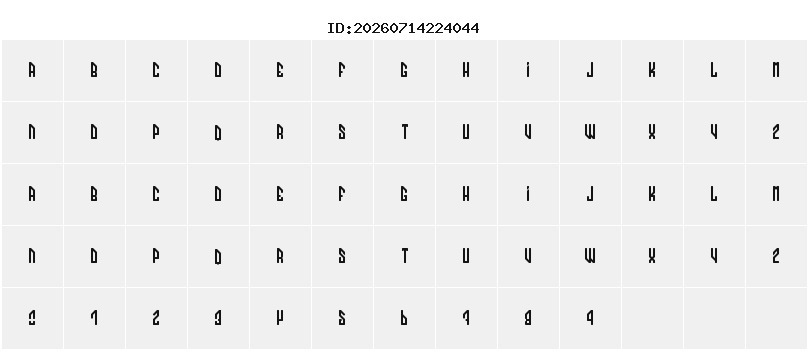
JACKIE TALKS TO YOU ! Preview
• Font Name: JACKIE TALKS TO YOU !
• Full Font Name: JACKIE TALKS TO YOU !
About JACKIE TALKS TO YOU !.ttf
JACKIE TALKS TO YOU !.ttf is a modern, elegant sans-serif font designed for ultimate readability and visual harmony. Perfect for branding, headlines, web design, and print materials.